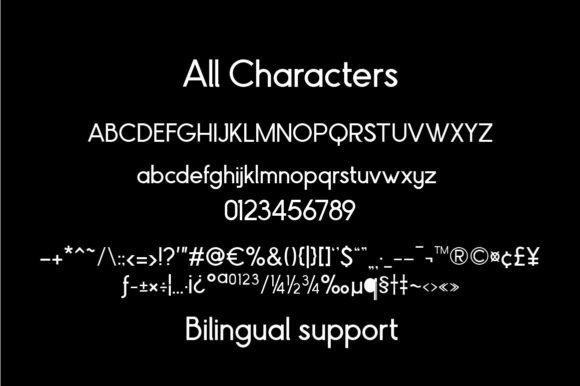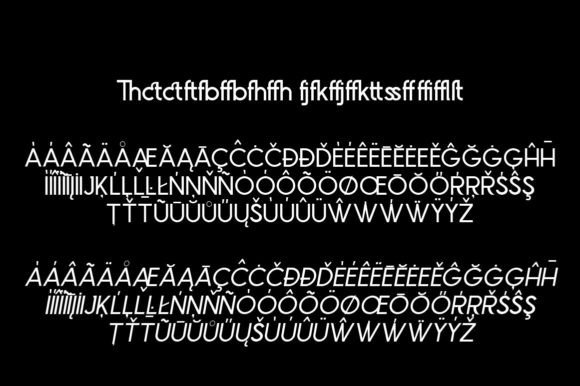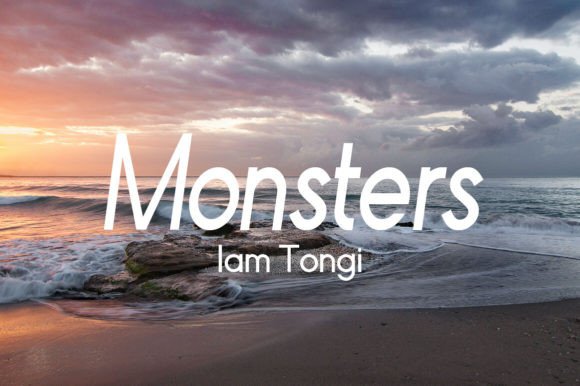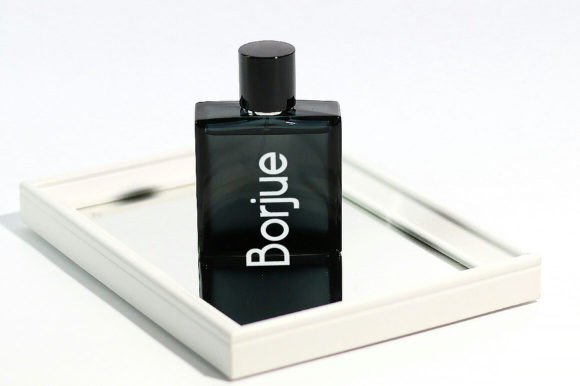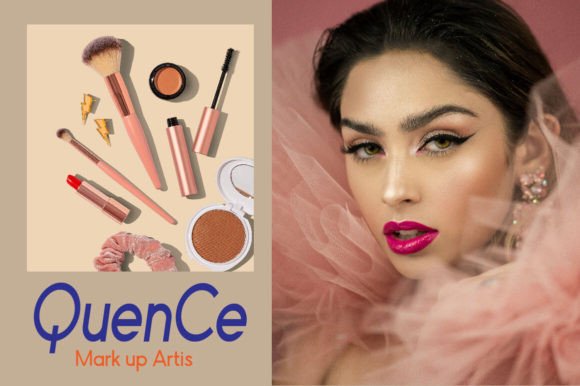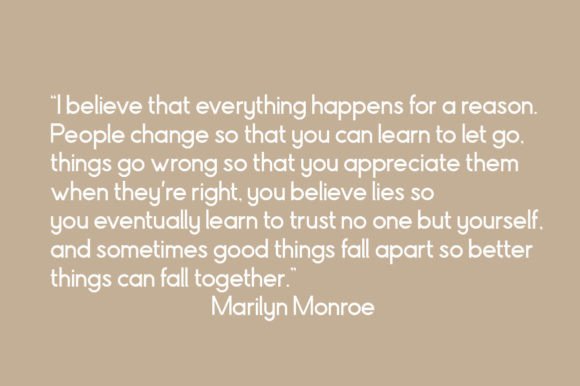
Introducing Borjue: The Timeless Elegance of a Stunning Sans Serif Font
In the world of typography, a font can make all the difference in the aesthetic and effectiveness of a design project. For designers and crafters seeking a typeface that exudes sophistication and modernity, Borjue emerges as a shining example of elegance and versatility. This stunning sans serif font is crafted to bring a touch of timeless class to any project, making it an indispensable tool for those who value beauty and precision in their work.
The Essence of Borjue: A Classic Design with a Modern Twist
Borjue’s design is rooted in the principles of classic typography, yet it incorporates sleek lines and contemporary styling that give it a distinctly modern feel. This balance of old and new makes Borjue an incredibly versatile font, suitable for a wide range of applications, from luxury branding and high-end fashion to digital media and print materials.
One of the defining features of Borjue is its clean, uncluttered appearance. The sans serif design eliminates unnecessary embellishments, allowing the text to breathe and ensuring that the message is conveyed clearly and effectively. This clarity, combined with the font’s elegant lines and proportions, makes Borjue exceptionally readable across various mediums, from large headlines to body text.
Why Choose Borjue for Your Projects?
There are several reasons why Borjue stands out as a preferred choice for designers and crafters:
- Elegance and Sophistication: Borjue’s classic design ensures that your project exudes elegance and sophistication, making it perfect for high-end branding, luxury goods, and premium services.
- Versatility: The font’s modern touch and clean lines make it versatile enough to be used in a variety of contexts, from digital interfaces to print materials, ensuring consistency across your brand’s visual identity.
- Readability: Borjue’s clear and simple design ensures high readability, making it an excellent choice for body text as well as headlines.
- Timeless Appeal: Unlike trendy fonts that may quickly become outdated, Borjue’s timeless design ensures that your project will remain stylish and relevant for years to come.
How to Use Borjue Effectively in Your Designs
To make the most of Borjue’s stunning features, consider the following tips:
- Pair with Complementary Fonts: While Borjue is versatile on its own, it can also be paired with other fonts to create interesting contrasts. Experiment with serif fonts for a classic look or other sans serifs for a modern, layered effect.
- Experiment with Weights: Borjue comes in various weights, allowing you to create visual hierarchy in your designs. Use bolder weights for headlines and lighter weights for body text to ensure clarity and emphasis.
- Pay Attention to Spacing: The elegance of Borjue can be further enhanced by paying attention to spacing. Ensure that your text has adequate kerning and leading to maintain readability and aesthetics.
Borjue is more than just a font; it’s a design statement. Its timeless elegance, combined with a modern touch, makes it an invaluable asset for designers and crafters aiming to elevate their projects. Whether you’re working on a luxury brand, a digital app, or a print magazine, Borjue offers the versatility and sophistication needed to make your text look effortlessly beautiful. Embrace Borjue in your designs and discover how this stunning sans serif font can transform your work into a masterpiece of elegance and style.
In a world where typography plays a crucial role in communication and aesthetics, Borjue stands out as a beacon of quality and design excellence. Make Borjue a part of your design toolkit and experience the difference it can make in creating visually stunning and effective projects.